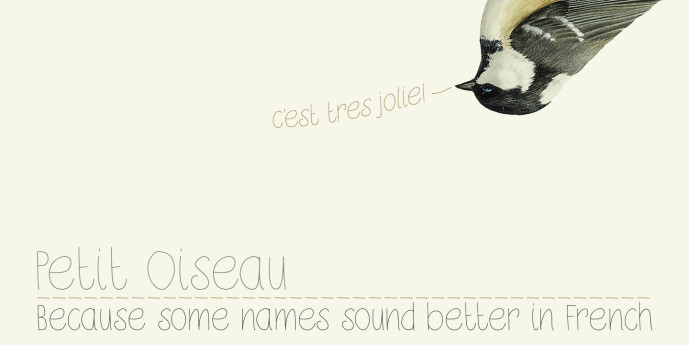
Petit Oiseau Font
Designer: Hanoded
Petit Oiseau Font is a very nice and very legible ‘back-to-school’ kind of typeface. It is thin, elegant and stylish, yet retains a certain youthfulness. Petit Oiseau comes with Babylonian language support!